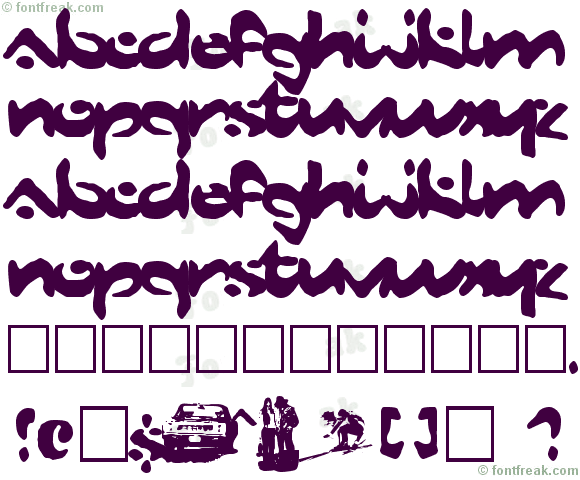
Dust Mites
The Dust Mites font, created by Cheops Fonts, is a unique display typeface that captures attention with its playful and organic aesthetic. This freeware font features a distinct handwritten style, characterized by its irregular stroke weight and whimsical forms that evoke a sense of movement and spontaneity. The letters appear slightly uneven and free-spirited, giving it a casual yet artistic vibe. Dust Mites exhibits minimal contrast in its strokes, providing a cohesive look that enhances readability while maintaining its decorative charm.
This font is perfect for a variety of creative applications. Its quirky character makes it suitable for children’s book covers, where a fun and engaging typeface can draw young readers in. It can also be effectively used in artistic event posters, lending an informal touch that aligns well with creative gatherings or art exhibitions. Additionally, Dust Mites is an excellent choice for branding small businesses, particularly those in the arts and crafts sector, as it conveys a sense of creativity and uniqueness. Restaurant menus can also benefit from this font, especially in casual dining settings, offering a friendly and approachable appeal to the menu design.
The target audience for the Dust Mites font includes graphic designers, small business owners, and content creators who seek to infuse their projects with a distinctive flair. Its versatility allows for use in both digital and print formats, making it a valuable asset for various design needs.
In conclusion, the Dust Mites font stands out due to its charming, informal style that brings a sense of creativity and whimsy to any project. For those looking to enhance their designs with a unique touch, the Dust Mites font free download is a fantastic option that promises to elevate visual storytelling.